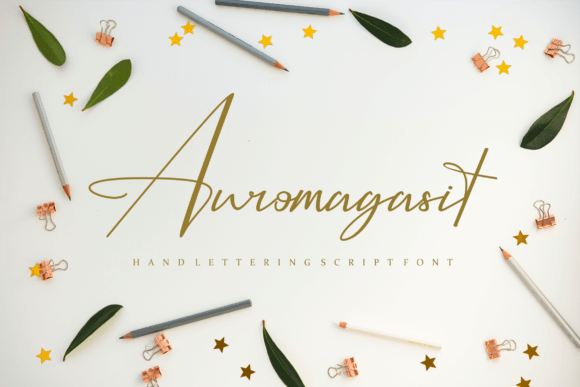
The Auromagasit Font: A Designer’s New Best Friend
I’ll never forget the time I was working on a branding project for a trendy new coffee shop. My client wanted a logo that was both modern and authentic, but I was struggling to find the perfect font. That’s when I stumbled upon Auromagasit, a thin and authentic handwritten font that stole my heart. In this article, I’ll share my experience with Auromagasit, its features, and how to make the most of it in your designs.
An Honest Review of Auromagasit
• ✨ Authentic handwritten feel: Auromagasit has a unique, personal touch that makes it perfect for branding projects that require a human touch.
• ✅ Thin and elegant: The font’s thin lines and elegant curves make it suitable for a wide range of contexts, from logos to t-shirt printing.
• 💡 Highly versatile: Auromagasit can be used for both digital and print projects, making it a great addition to any designer’s toolkit.
While Auromagasit is an amazing font, it’s not perfect. Here are a few things to keep in mind:
• ⚠️ Limited character set: Auromagasit has a limited character set, which may not be suitable for projects that require a wide range of special characters.
• 🤔 Kerning issues: Some users have reported kerning issues when using Auromagasit in certain design applications.
The Story Behind Auromagasit
Auromagasit was designed by a talented type designer who’s passionate about creating unique and authentic fonts. The font was inspired by the beauty of handwritten letters and the need for a modern, elegant font that can be used for a wide range of projects.
Font Name Auromagasit Font
Author kalingga.albert
Q: What is Auromagasit?
A: Auromagasit is a thin and authentic handwritten font that’s perfect for branding projects, logos, t-shirt printing, and more.
Q: Is Auromagasit suitable for digital projects?
A: Yes, Auromagasit is highly versatile and can be used for both digital and print projects.
Q: Is Auromagasit easy to read?
A: Yes, Auromagasit is a clear and elegant font that’s easy to read, even at small sizes.